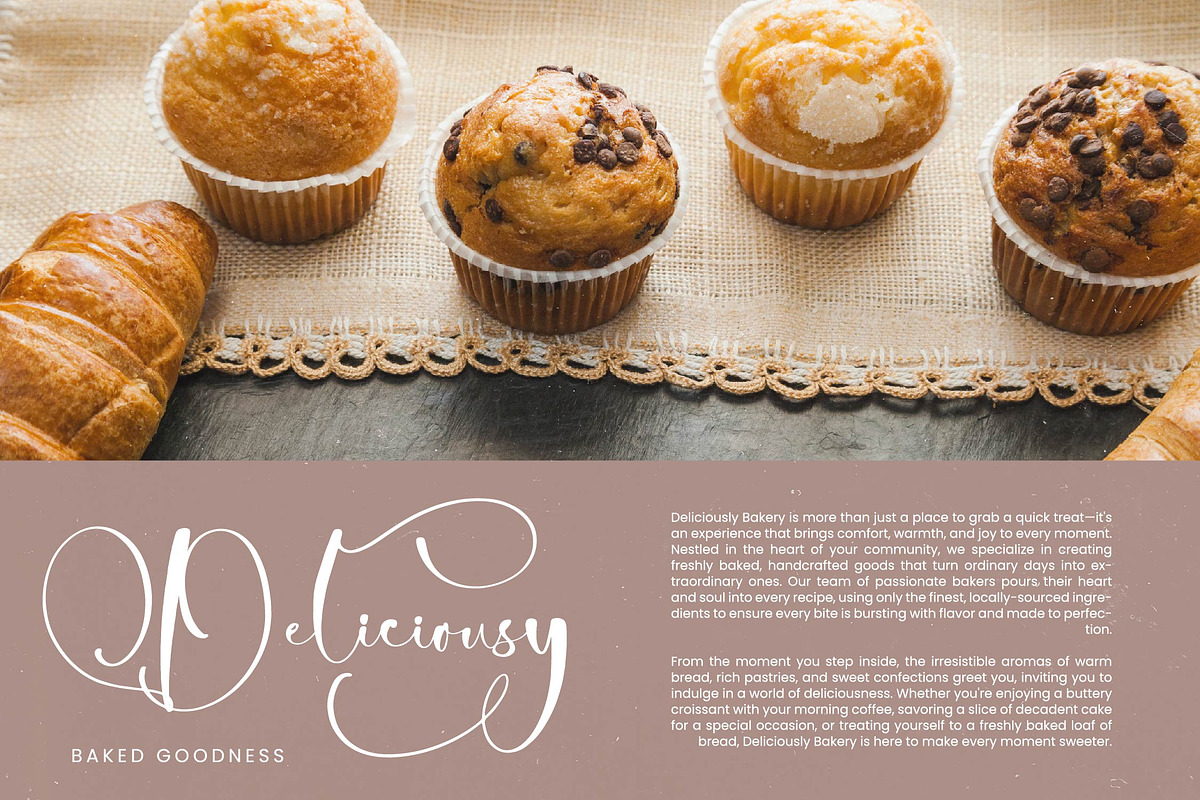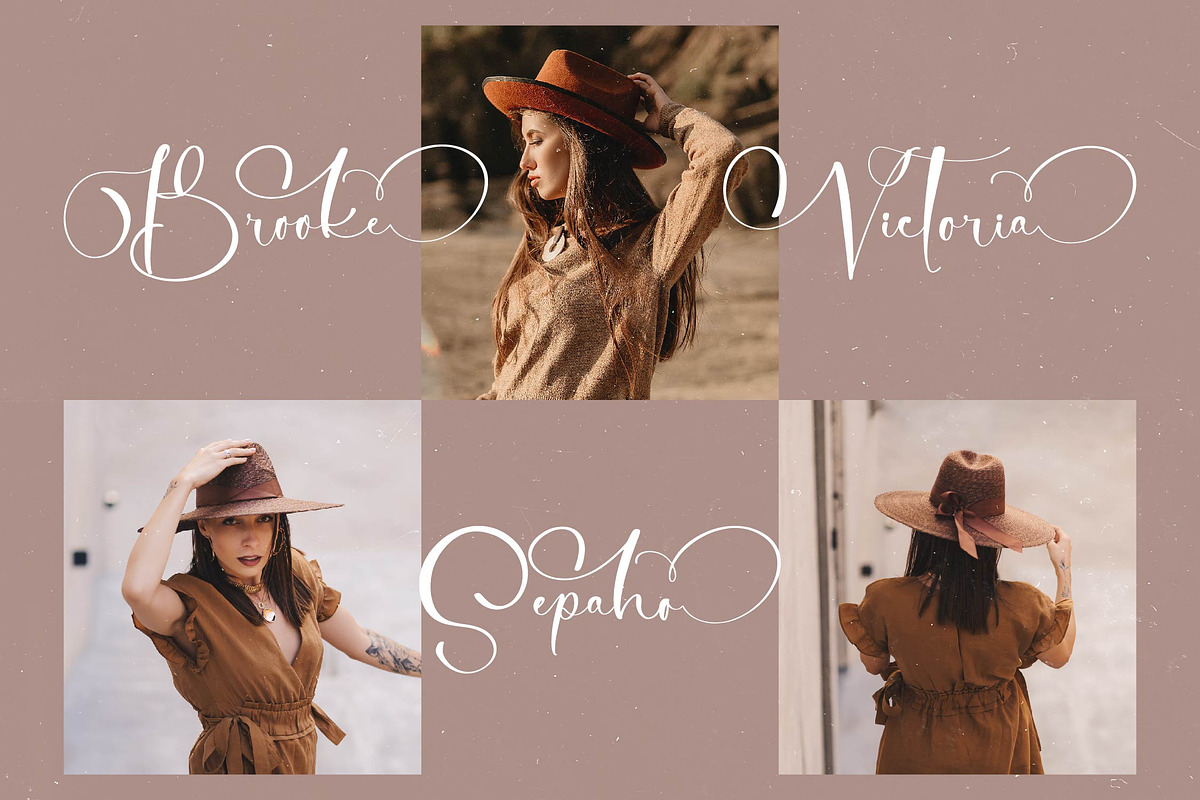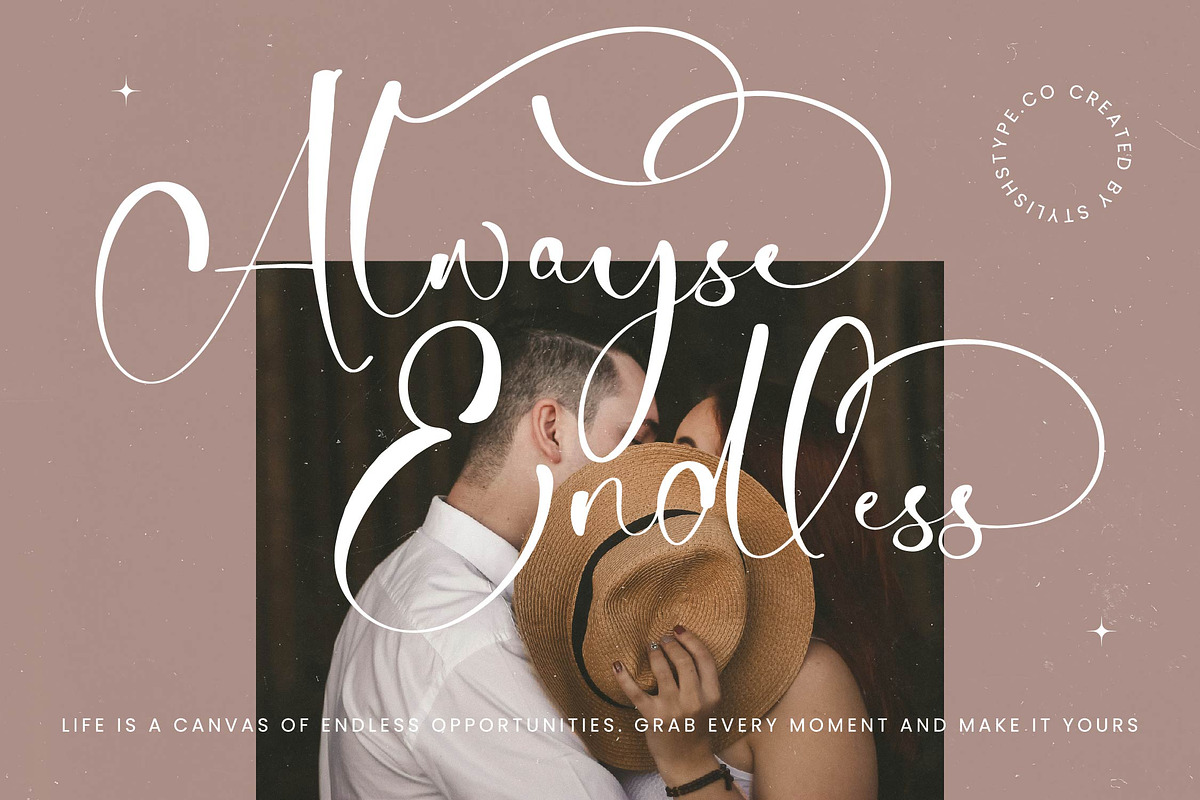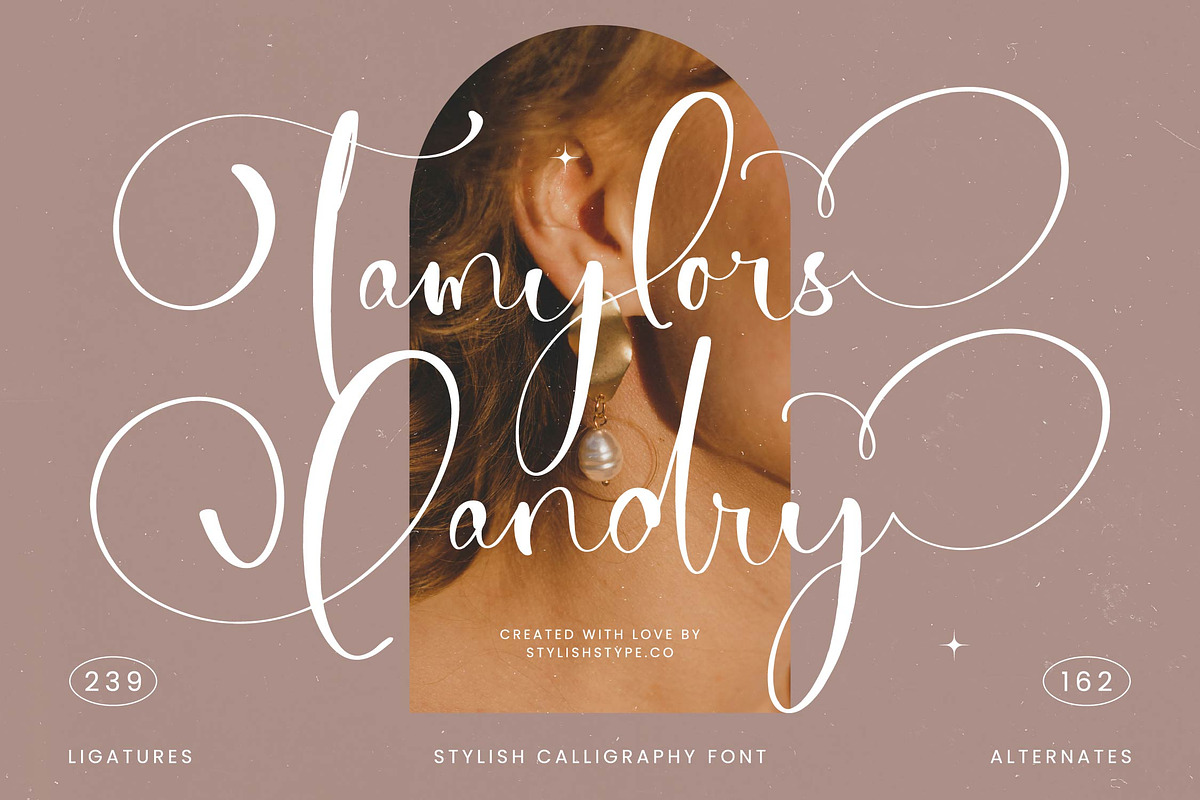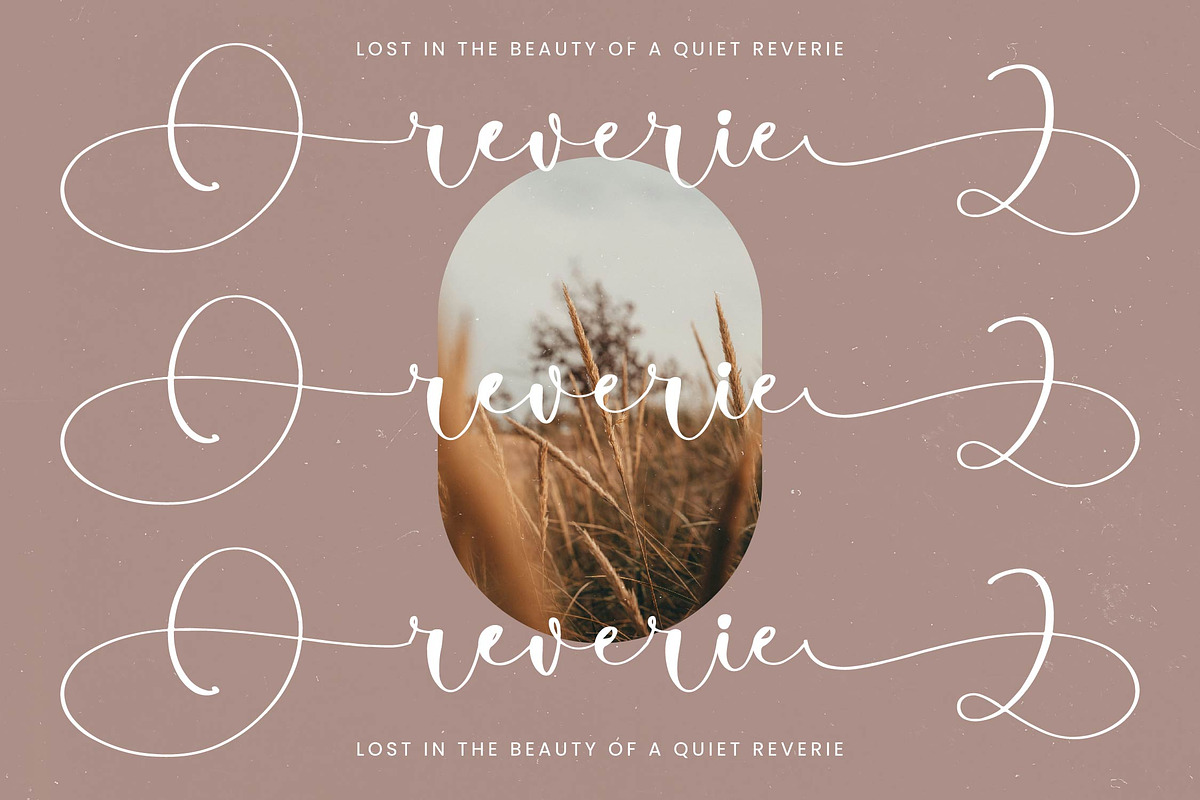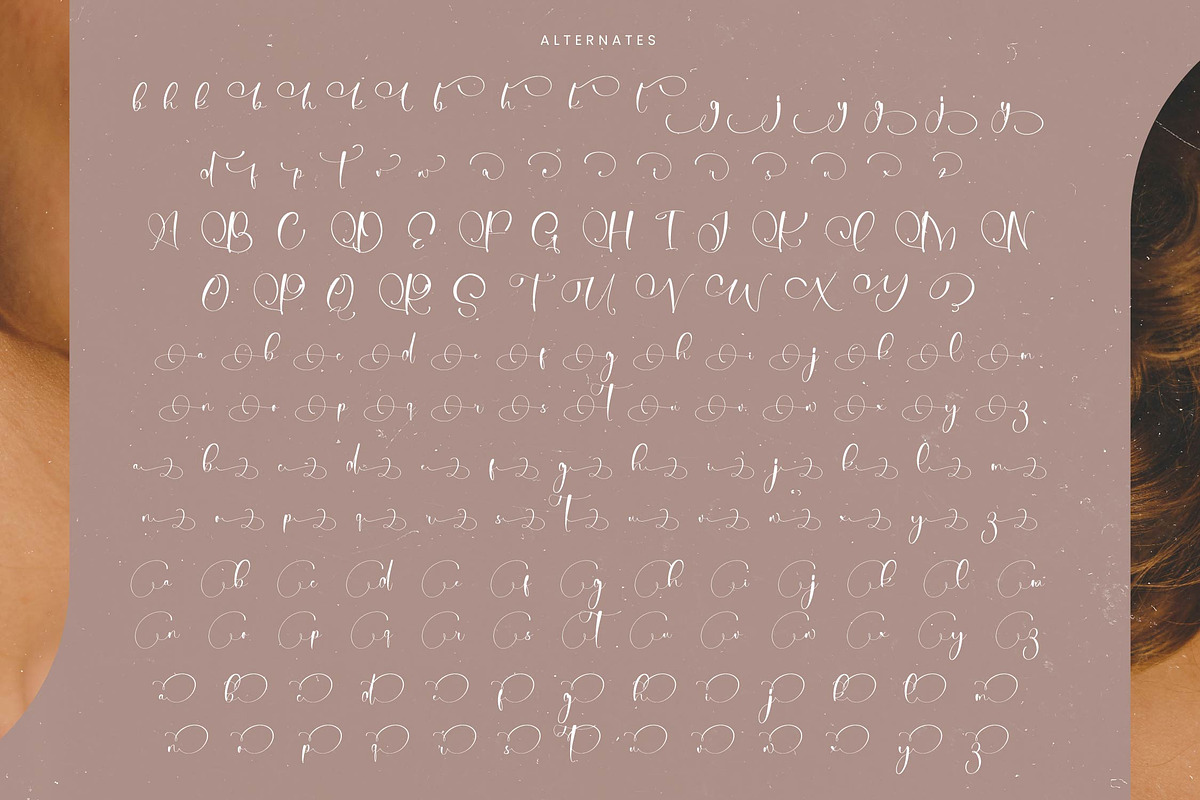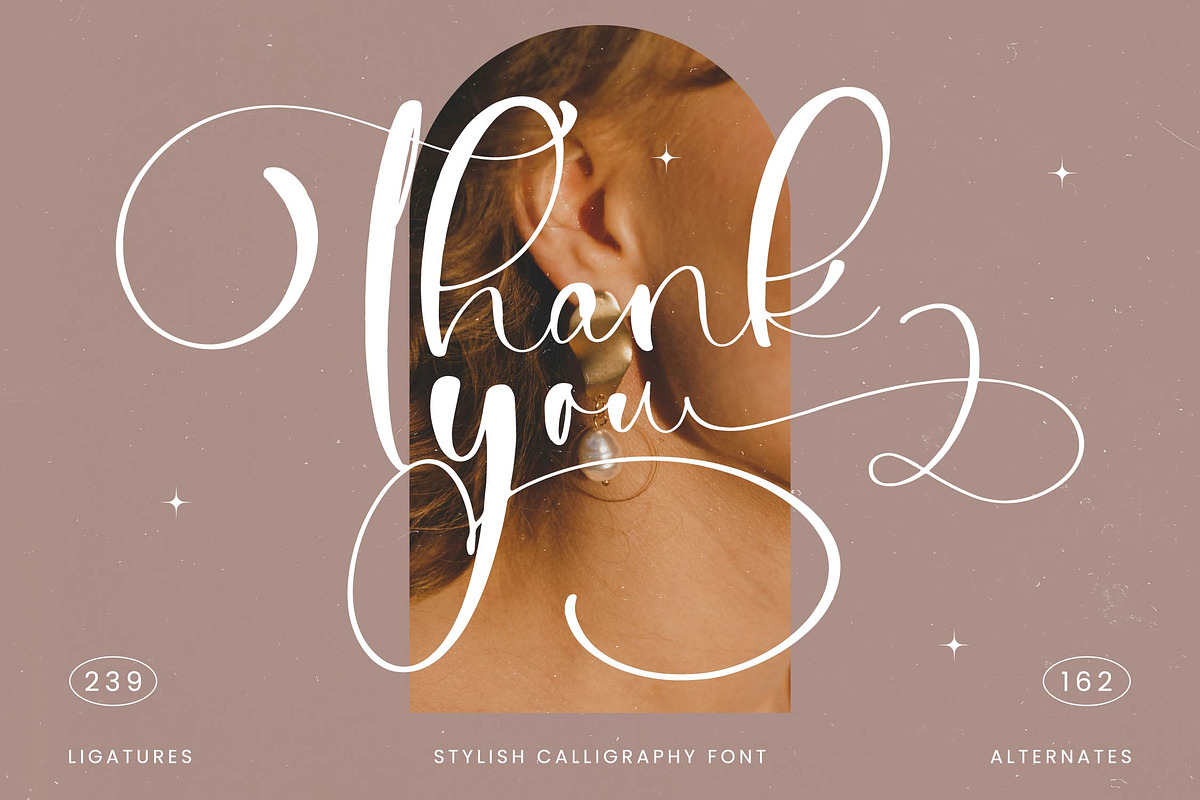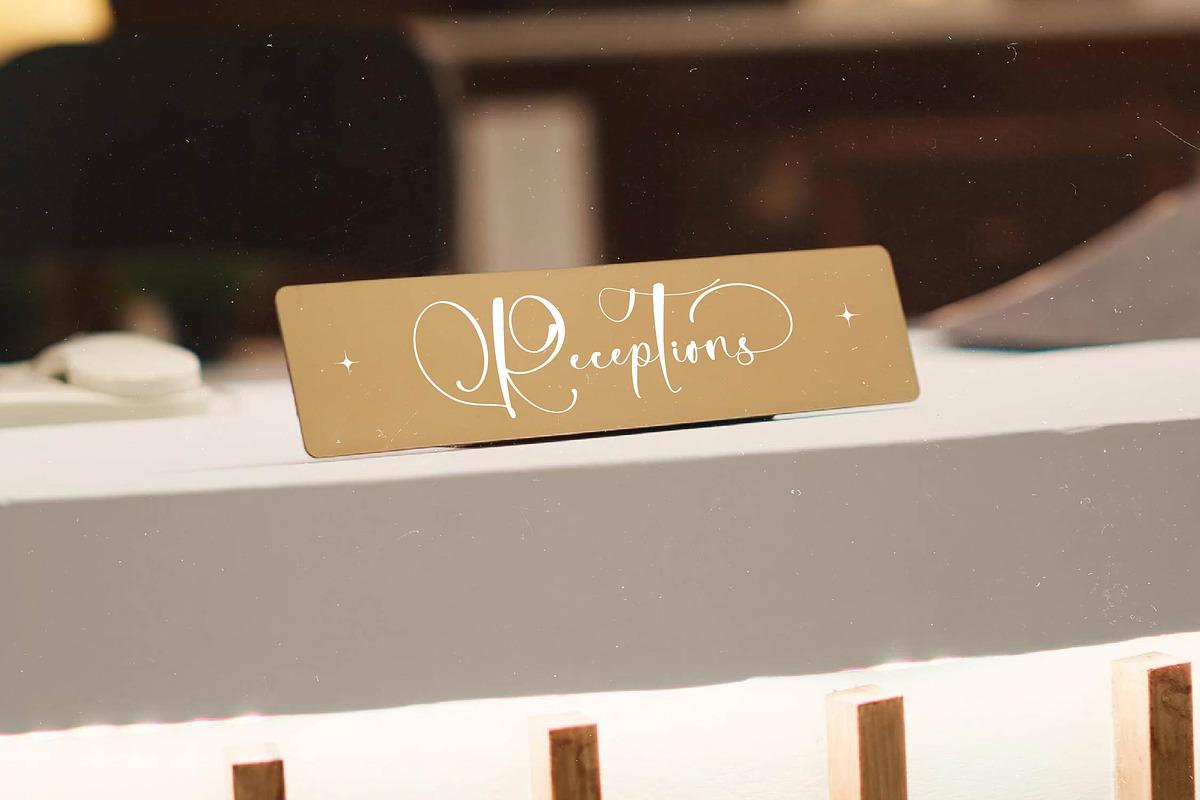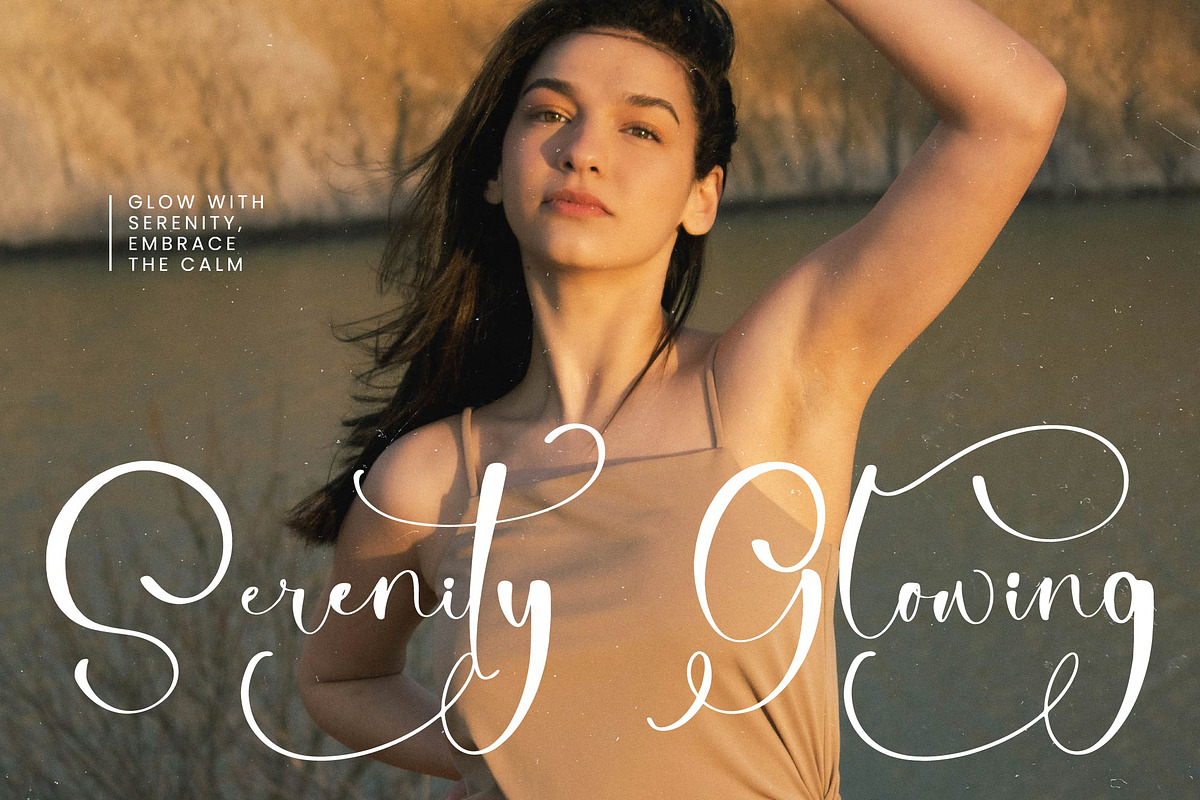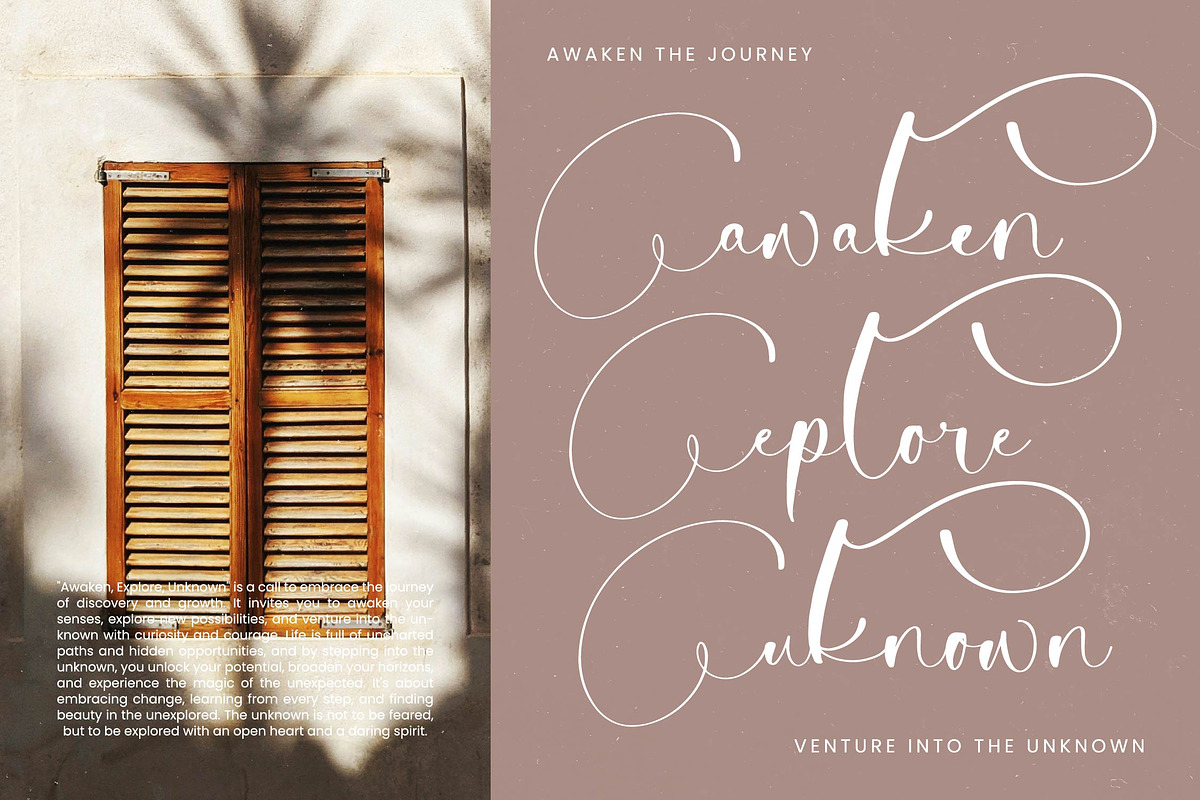
Tamylors Landry Stylish Calligraphy
Tamylors Landry - Stylish Calligraphy Font , from Stylishtype.Co , Suitable for any projects such as: logos, branding projects, homeware designs, product packaging, mugs, quotes, posters, shopping bags, t-shirts, book covers, name card, invitation cards, greeting cards, label, photography, watermark, special events, and all your other luxury and beautiful projects that need a Luxury Script taste.
- 239 Ligature 162 Alternates & Swashes